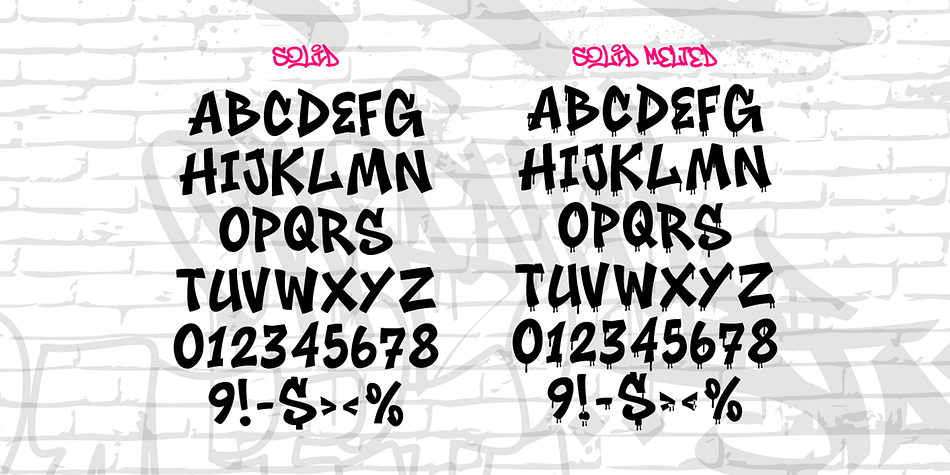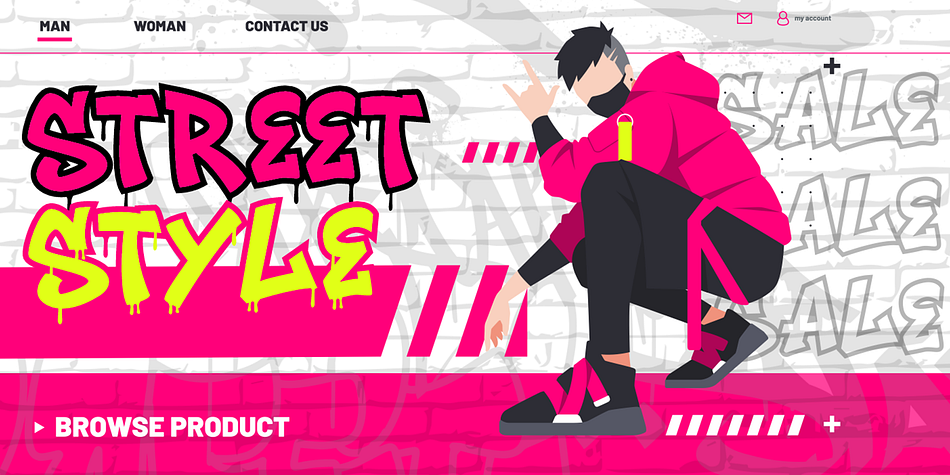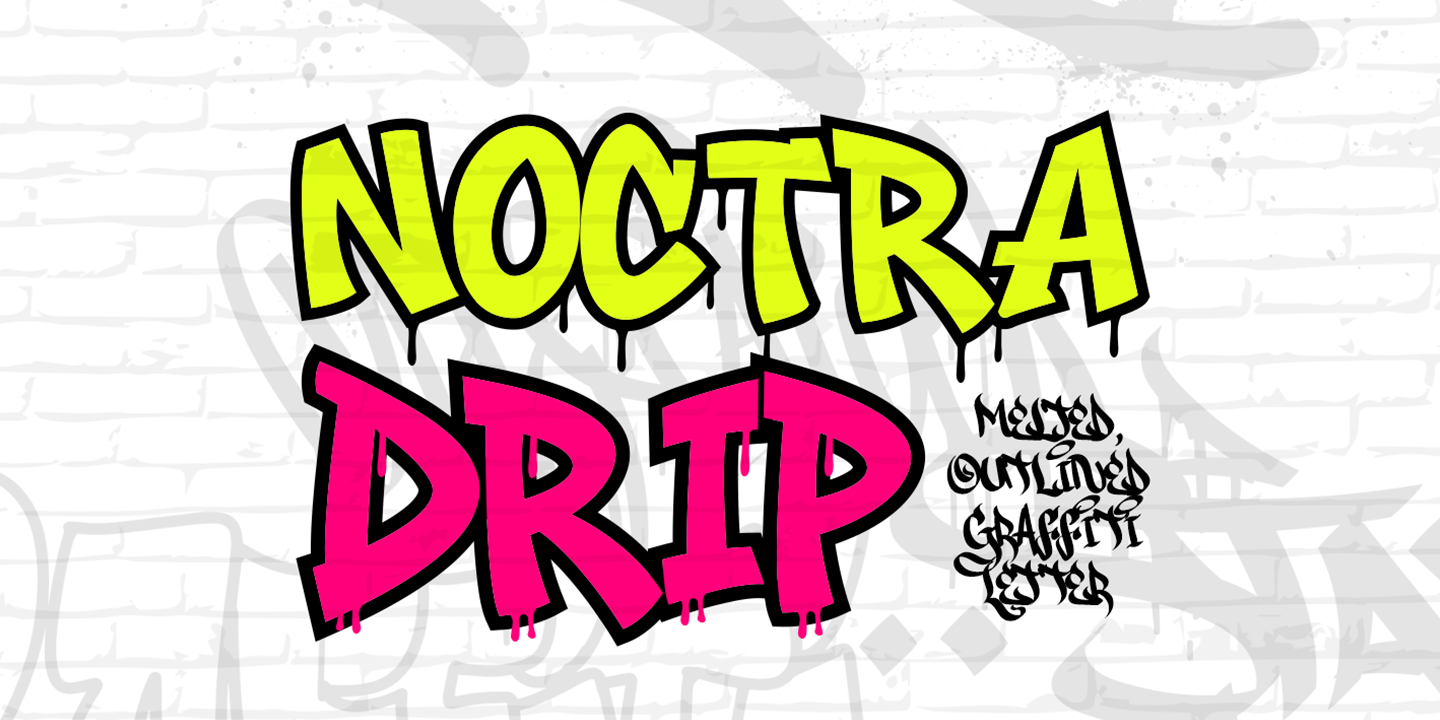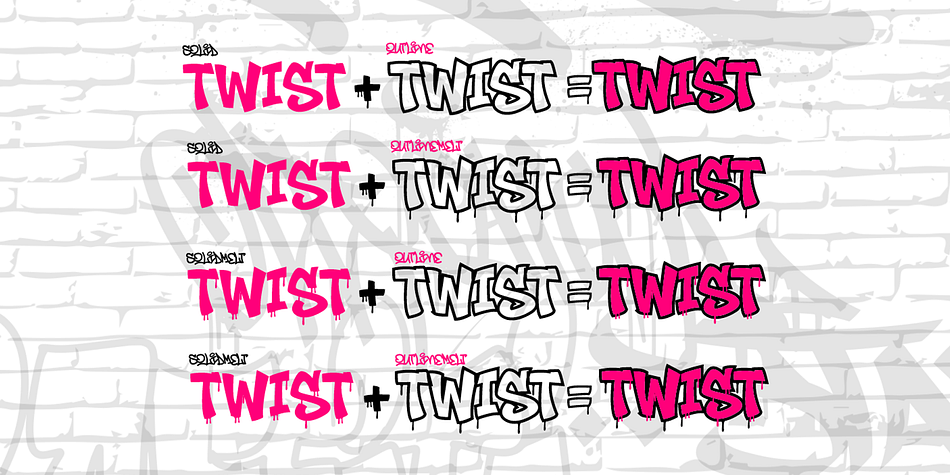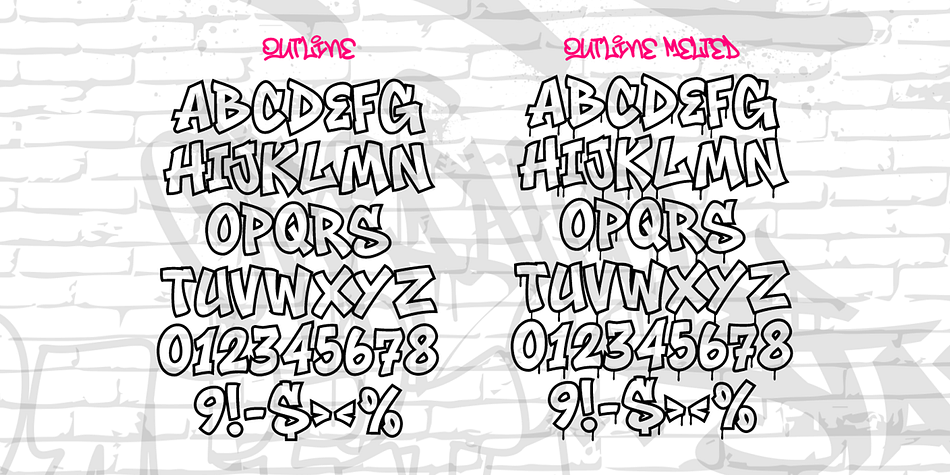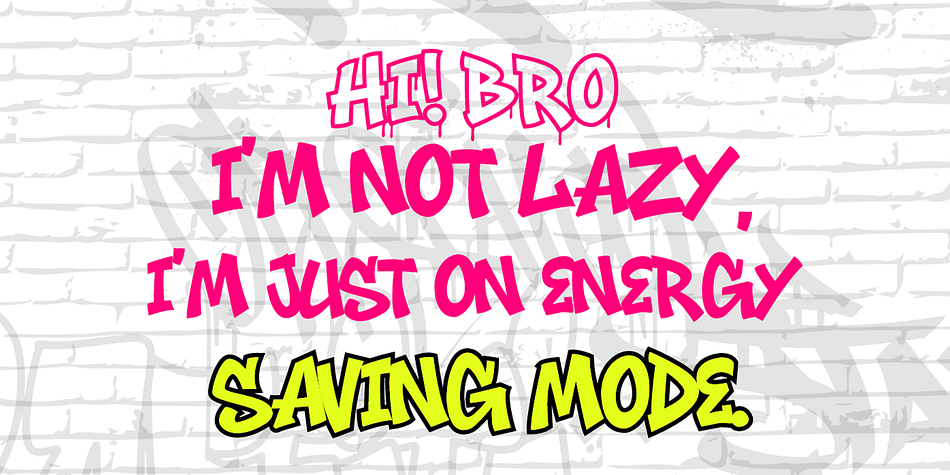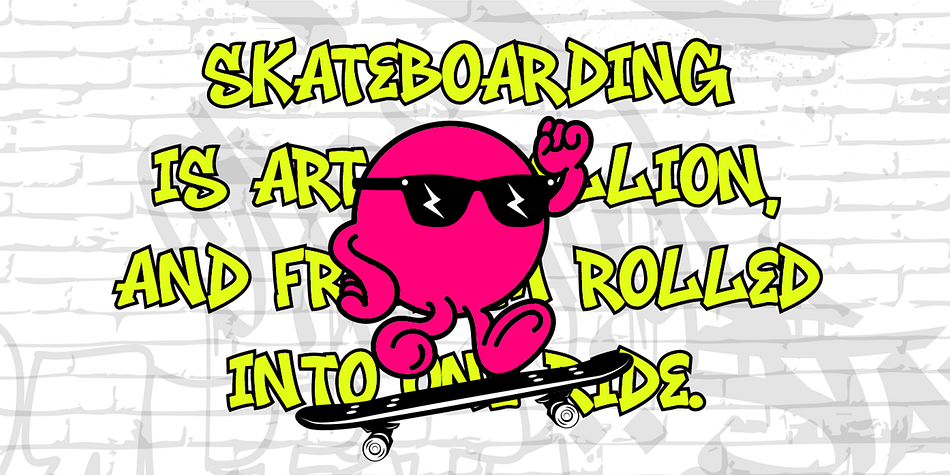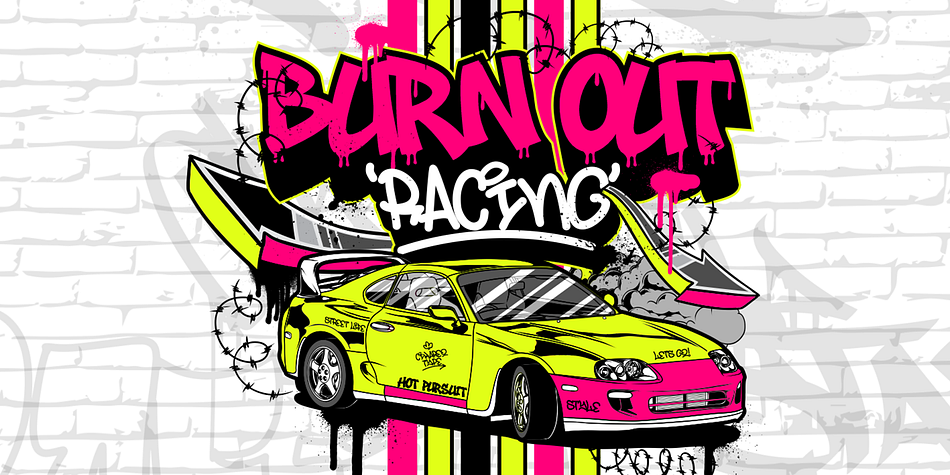
Embrace the audacious spirit of the urban landscape with Noctra Drip! This graffiti-infused, display font paints every page with the bold, rebellious essence of street-art. It’s awash in four daring styles - Solid, Solid Melt, Outline, and Outline Melt, providing a versatile palette for your divergent design needs. Each character is laced with the gritty, edgy accents and dripping details of a midnight génie de la rue, emitting an air of urban intrigue. Beyond perfect for streetwear branding exercises, it’s also a showstopper on music cover art, youth-focused posters, and any digital project seeking that ‘cut-through-the-noise’ factor. With Noctra Drip, your designs won’t just speak—they’ll scream with city cool!
- Versatile for branding, headline, or printing product